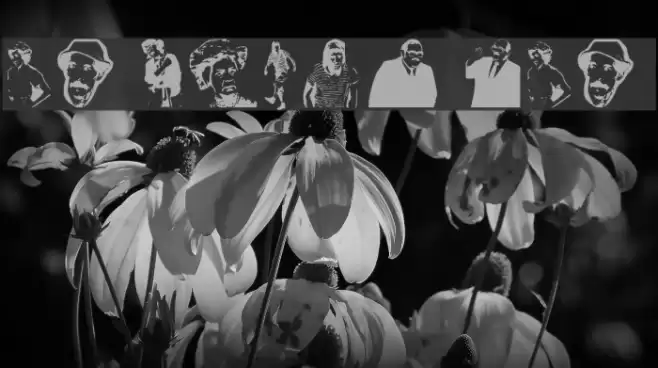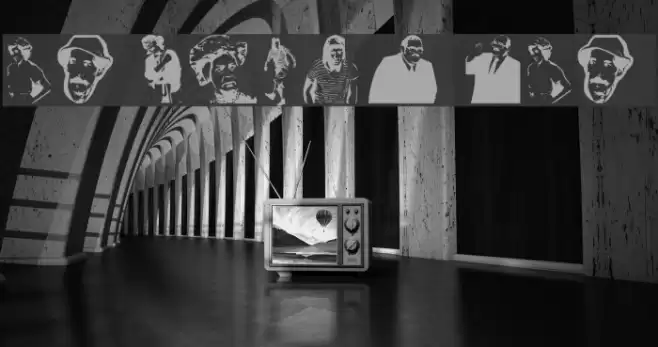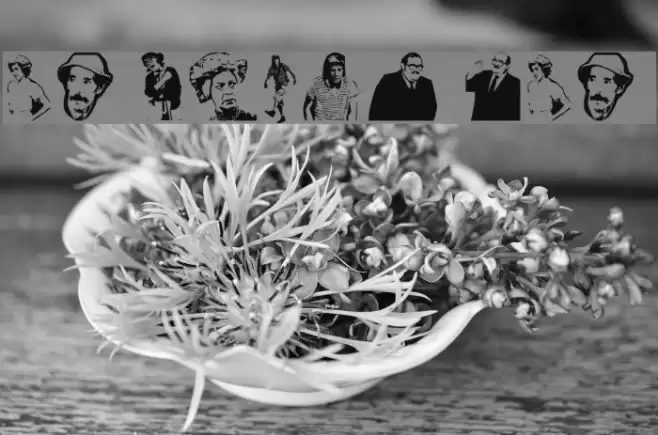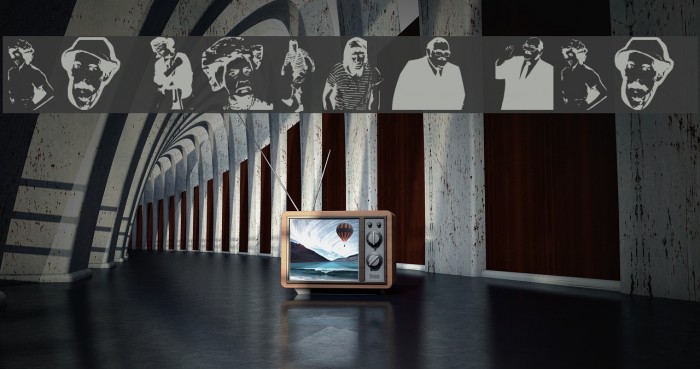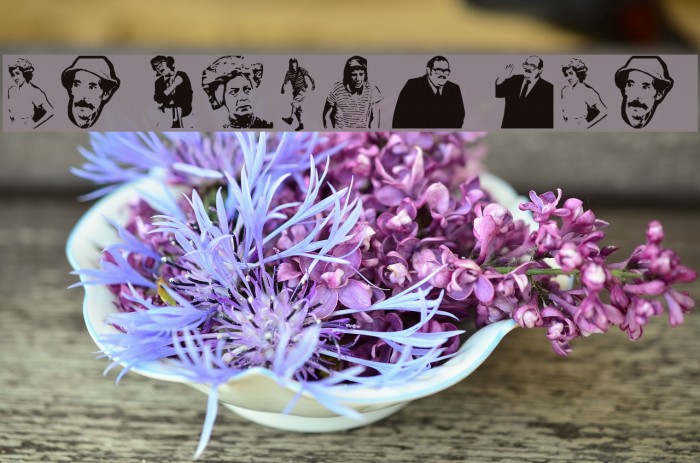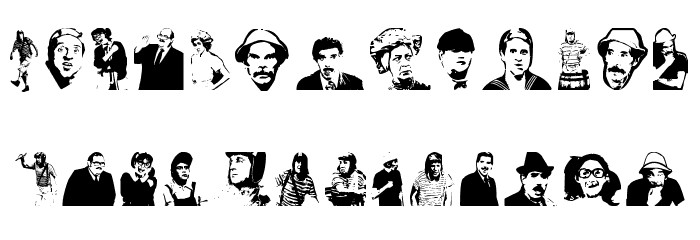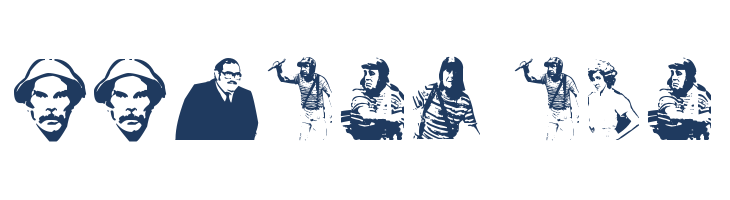
EL CHAVO DEL 8 Font
EL CHAVO DEL 8 Description
A decorative display font composed of high-contrast, black-and-white illustrated portraits and full-body caricatures, each representing a unique character. The glyphs are highly stylized and lack traditional typographic features, focusing on visual representation rather than legibility.
A character-based decorative font using illustrated portraits instead of standard letterforms from Dingbats fonts.
- Proposed Projects: Posters, themed party invitations, fan art, novelty merchandise, event branding, or any project requiring a playful, character-driven visual impact.
- Overall Style: Decorative, Playful, Thematic
- Use Case: Logos, Posters, Themed Graphics, Merchandise